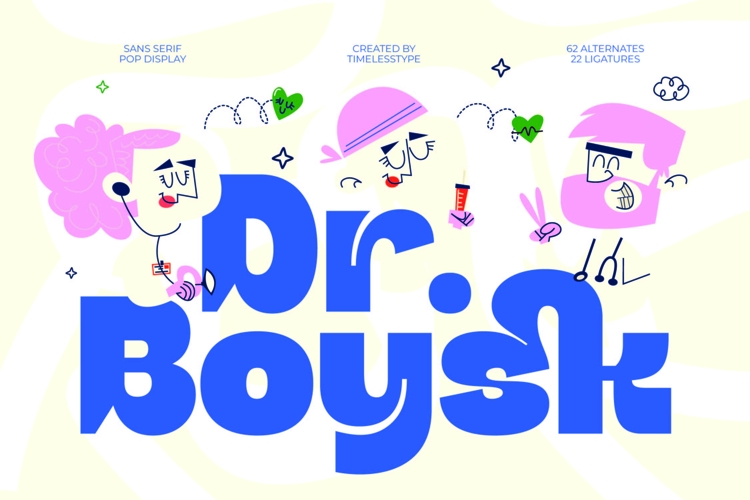
Dr Boysk - Sans Serif Pop Display Font
Inject immediate energy and unforgettable personality into your design work with Dr Boysk - Sans Serif Pop Display Font. This dynamic display typeface captures the essence of modern pop culture and retro signage, blending bold, thick strokes with smooth, friendly curves. Its exaggerated counter shapes and sturdy construction ensure maximum impact and legibility, even at large scales, positioning it as an instant centerpiece for any visual communication that demands attention and a lighthearted feel.
Unlock boundless creative possibilities through its comprehensive glyph set. Dr Boysk - Sans Serif Pop Display Font is equipped with 62 sophisticated alternates and 22 stylish ligatures, offering designers unparalleled customization options. These typographic features allow you to tailor the rhythm and flow of your text, ensuring truly unique branding deliverables that stand out from conventional type offerings, making it an essential tool in any modern designer's toolkit.
Ensure your message resonates globally without compromise. With its extensive multilingual support, Dr Boysk - Sans Serif Pop Display Font adapts seamlessly across global markets, making it incredibly versatile for international projects. This robust language compatibility guarantees that the font's distinctive, playful aesthetic is maintained whether you are designing content for North American, European, or other language groups, securing a consistent brand voice worldwide.
This is the definitive solution for impactful, youthful design. Dr Boysk - Sans Serif Pop Display Font is perfect for vibrant packaging design, striking event posters, children’s apparel, logo creation for casual tech startups, and any digital content requiring a shot of optimism. Its bold, friendly presence makes it ideal for capturing the attention of Gen Z audiences, delivering a confident, approachable, and highly memorable visual identity that converts curiosity into brand recognition.